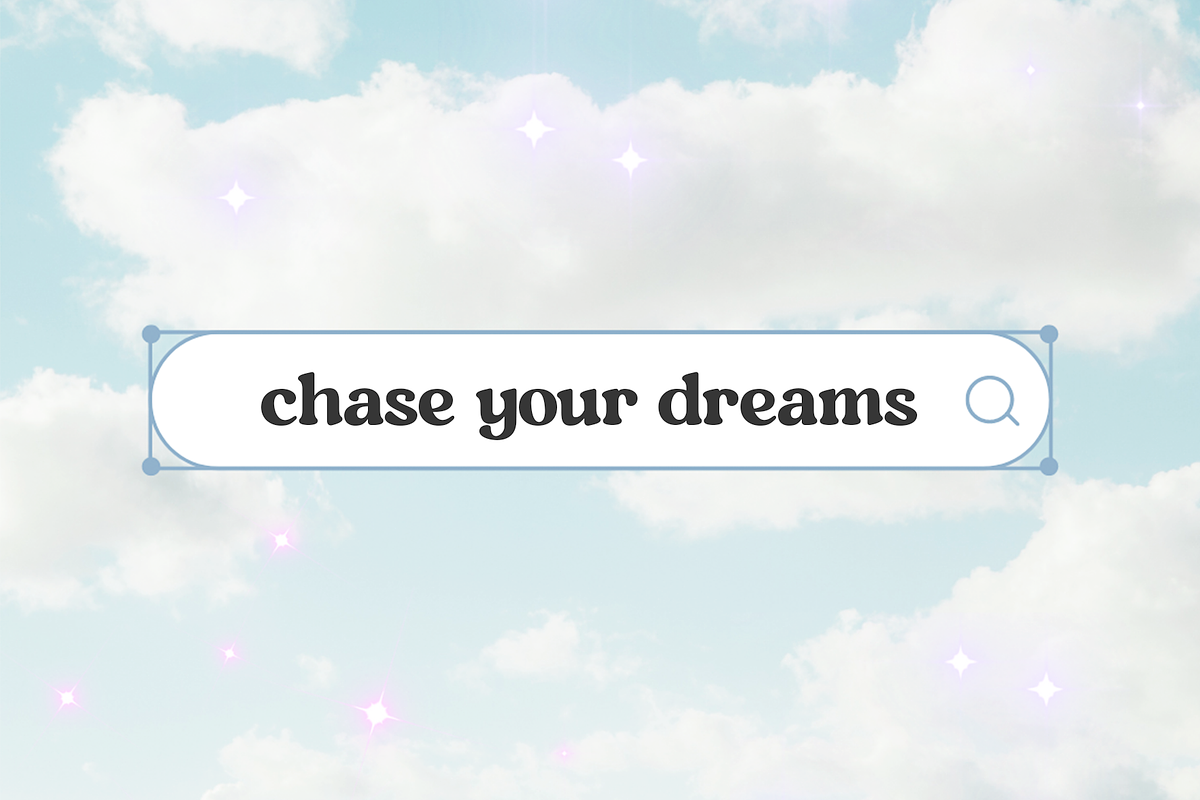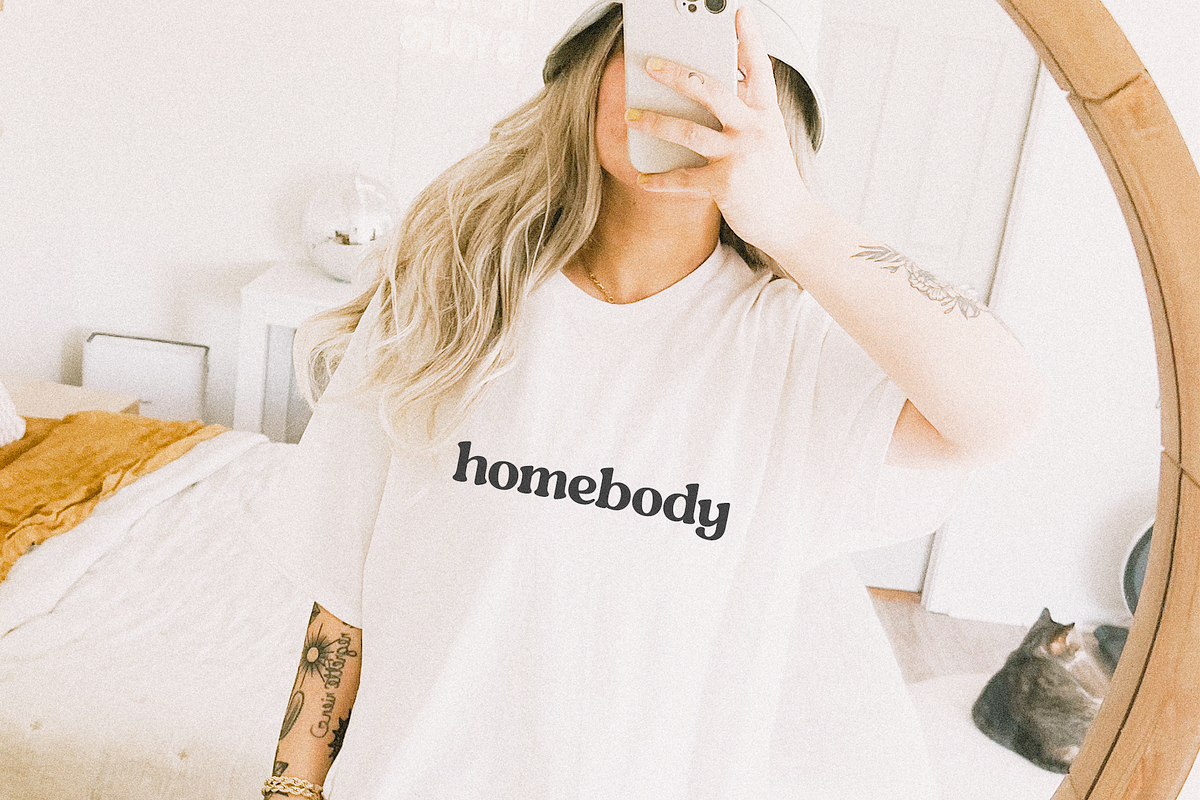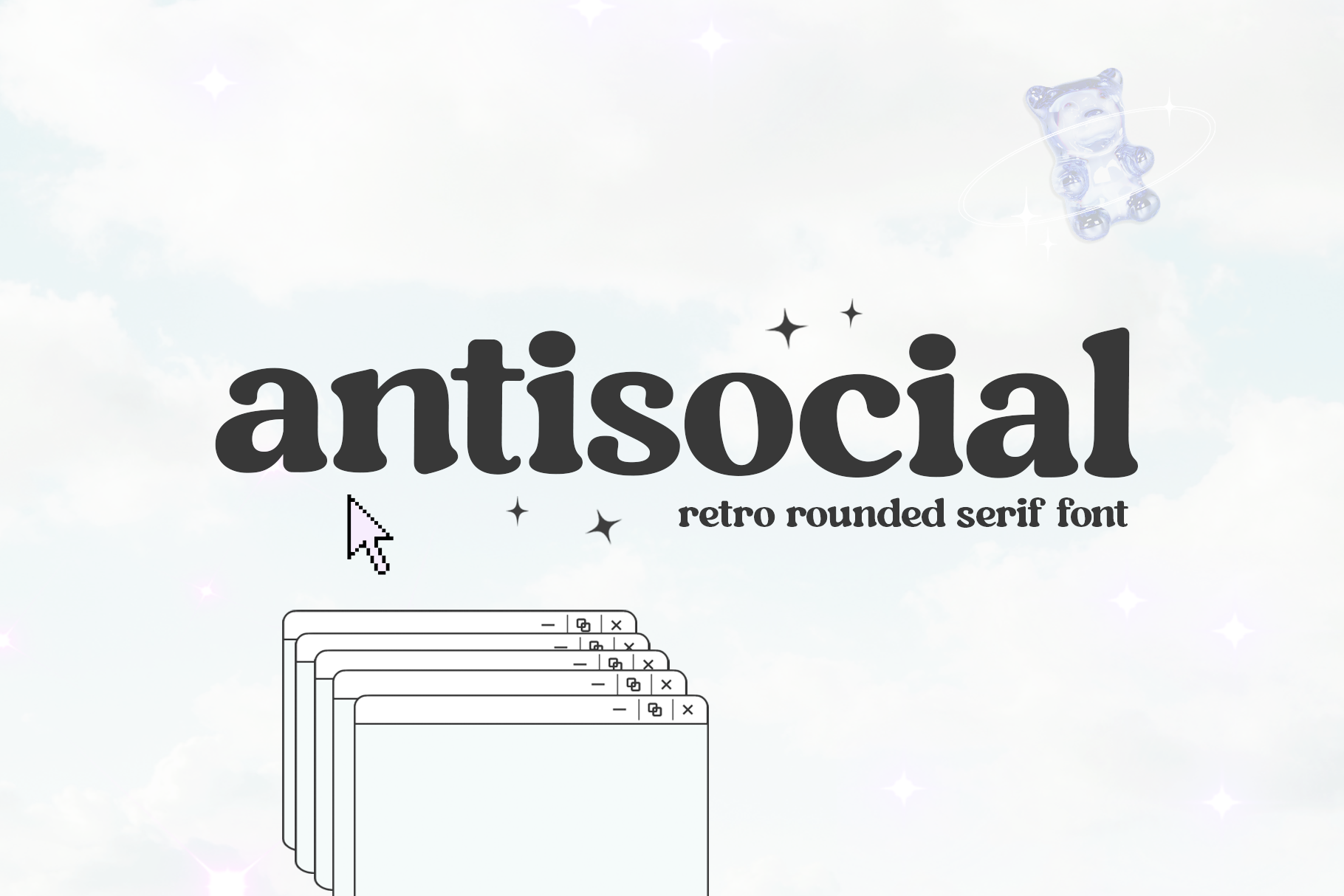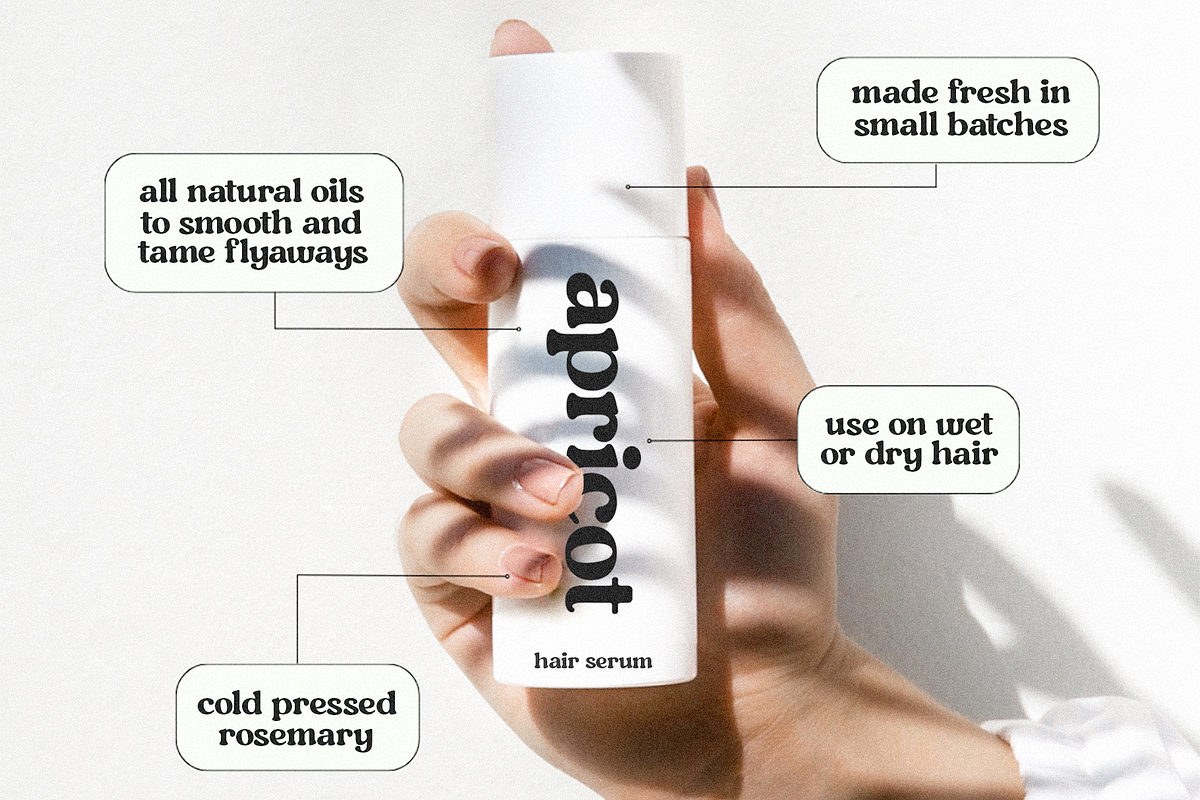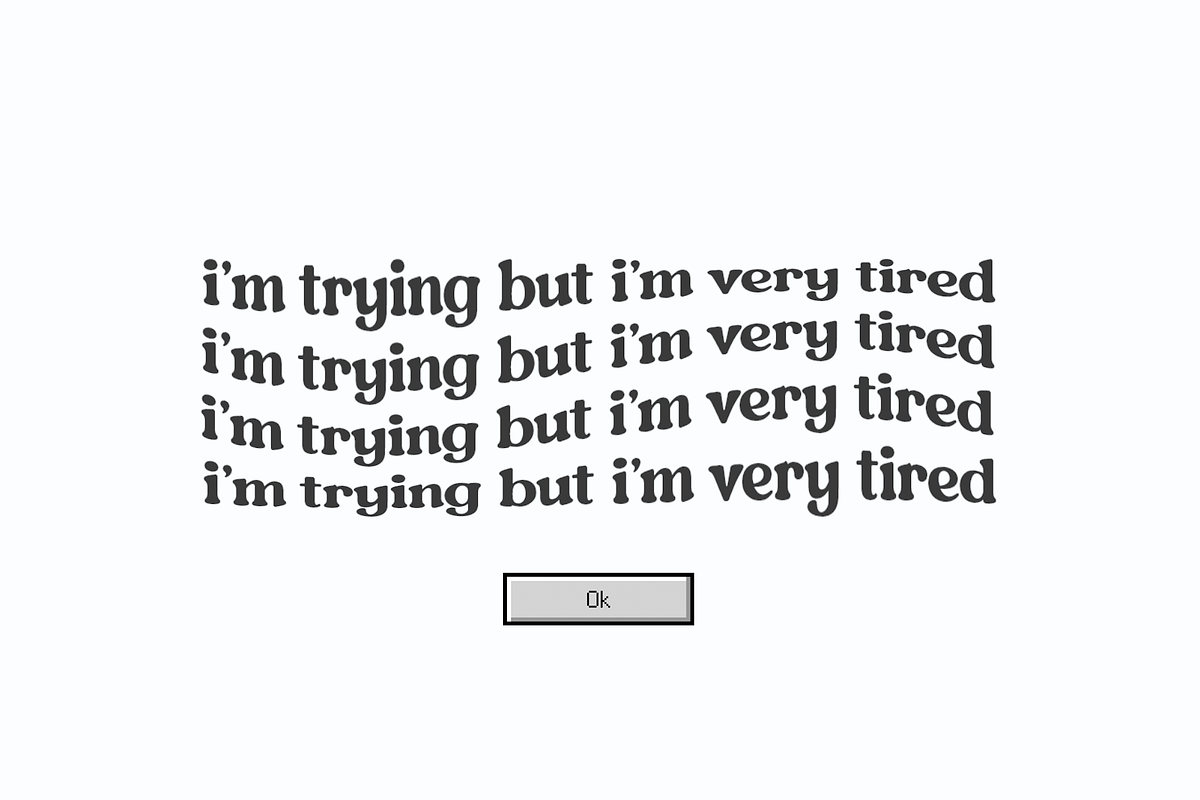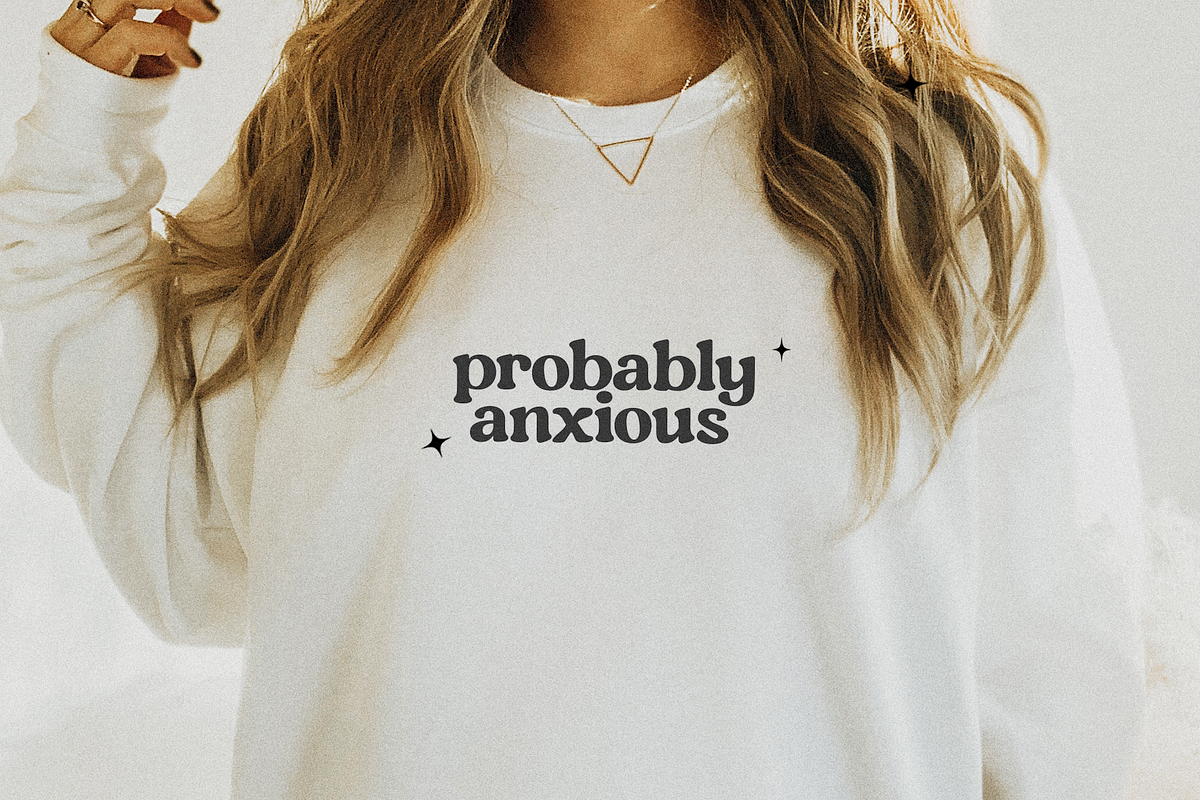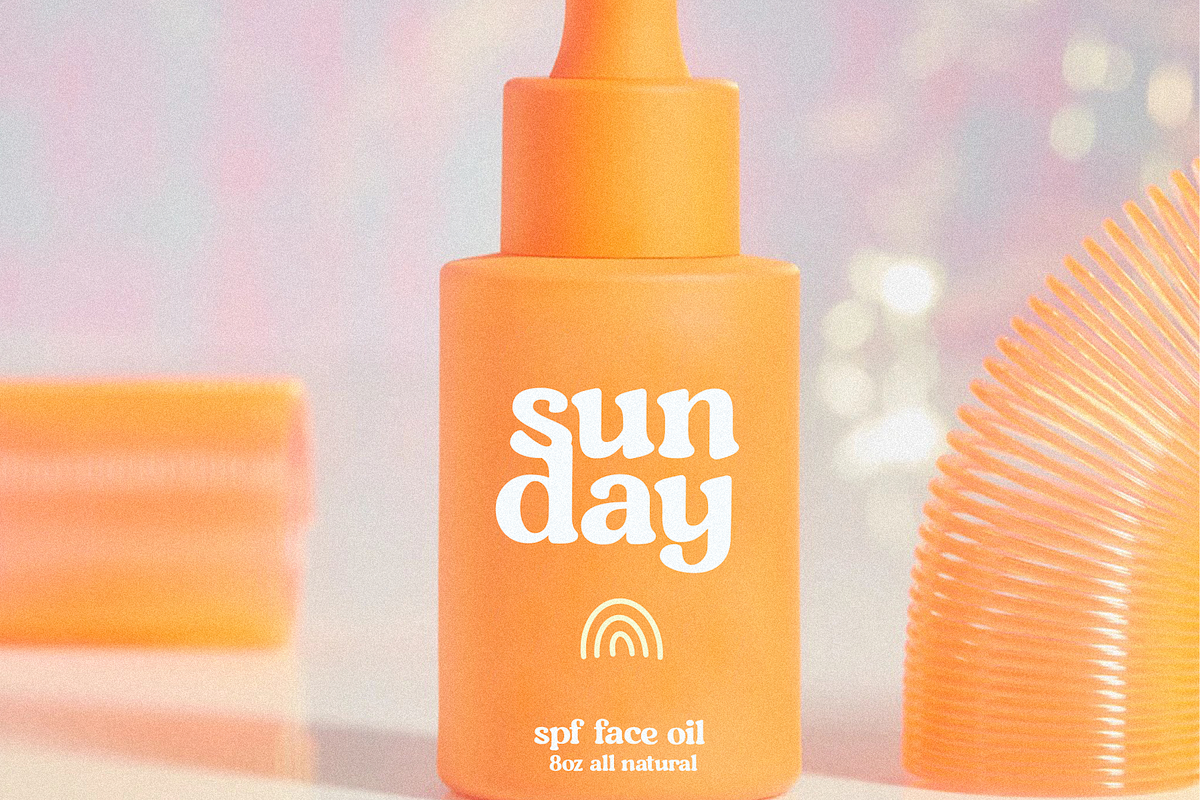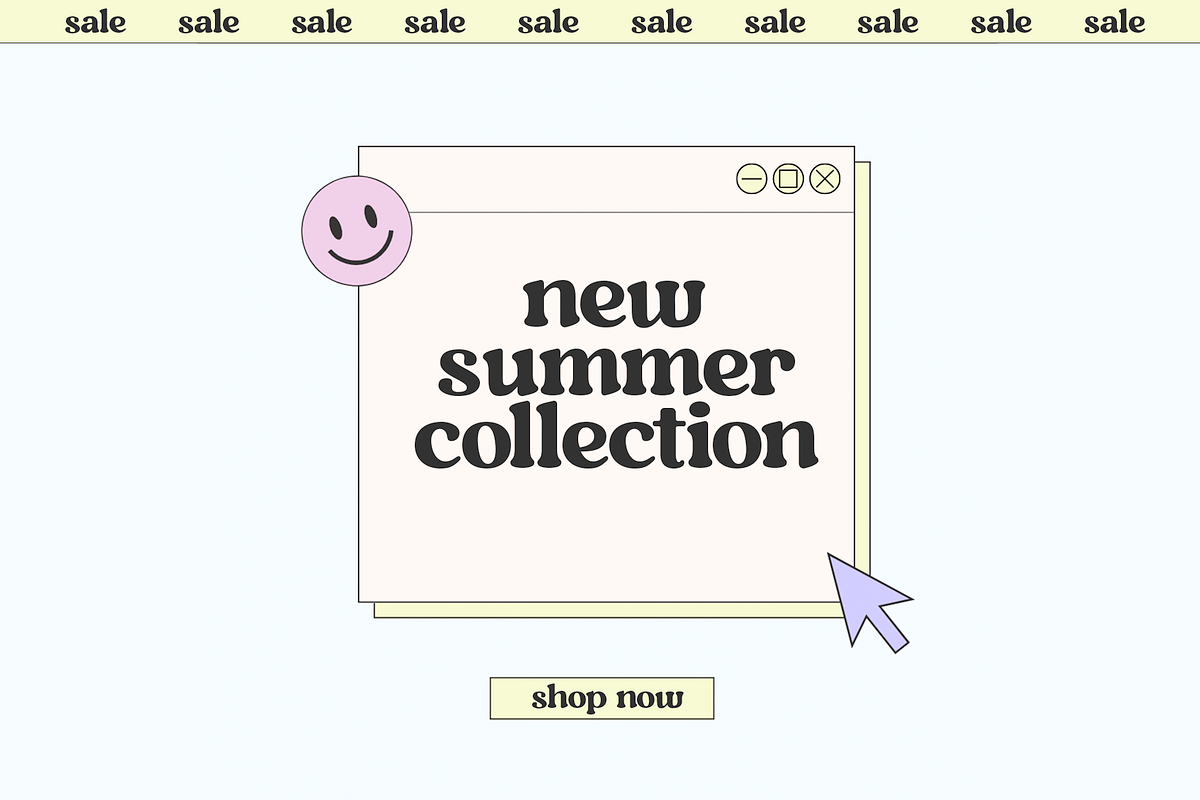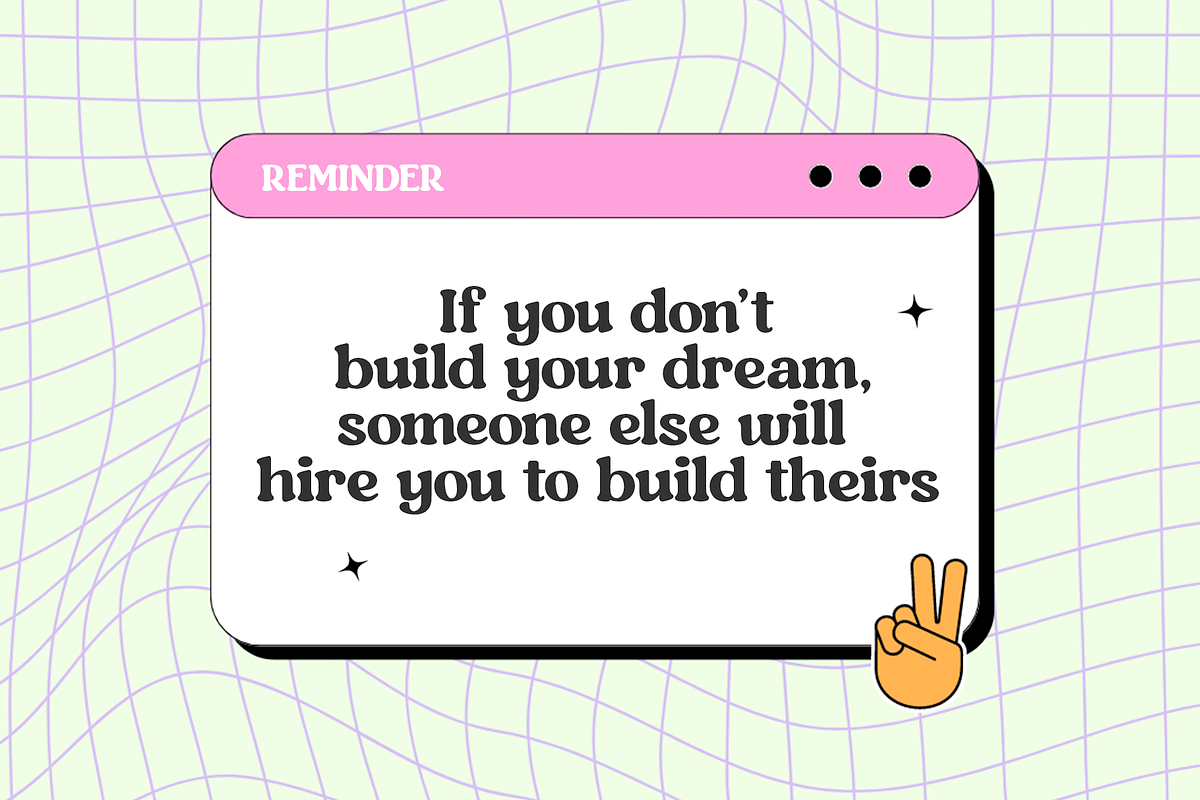
Antisocial - Retro Serif Font
Antisocial is a rounded serif font.
This font is perfect for your retro designs, y2k designs, social media, logos, shirts, mugs, stickers, procreate, quotes, packaging, advertisements and more!